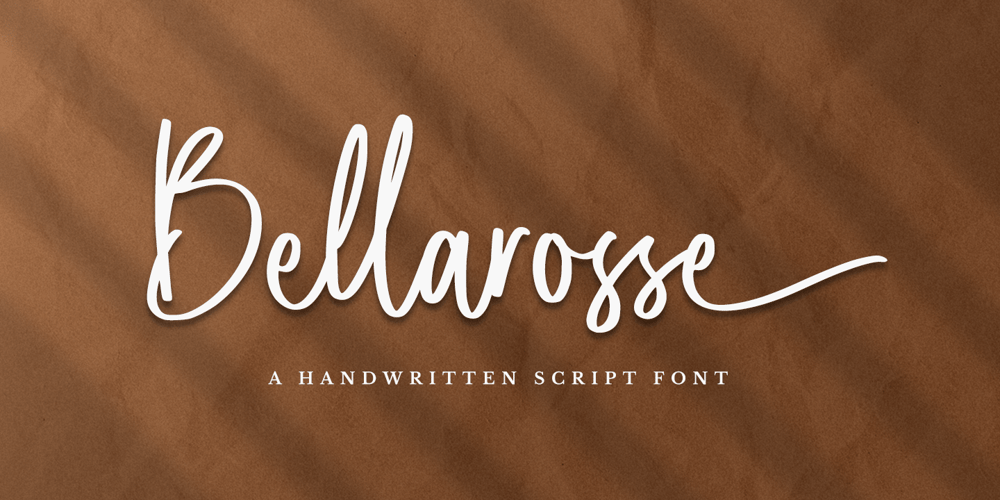
Bellarosse
Bellarosse font
Bellarosse Font Family was designed by Novia Himatunnisa and published by Nissa Nana. Bellarosse contains 1 styles and family package options. Bellarosse is a delicate, elegant and flowing handwritten font. Get inspired by its authentic feel and use it to create gorgeous wedding invitations, beautiful stationary art, eye-catching social media posts, and cute greeting cards.